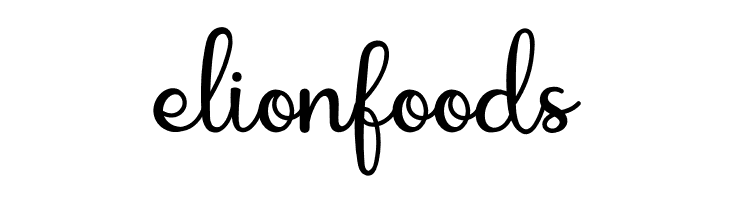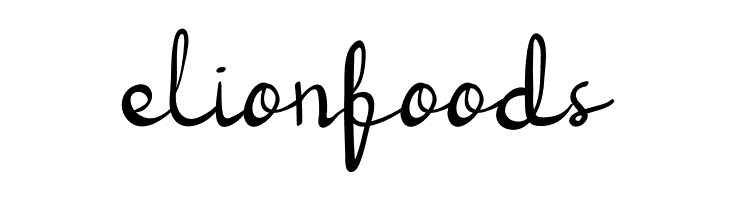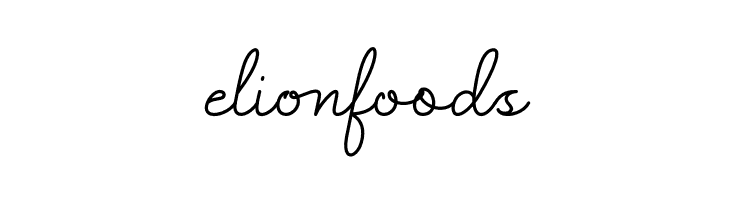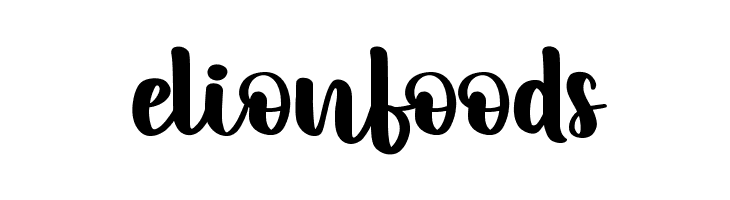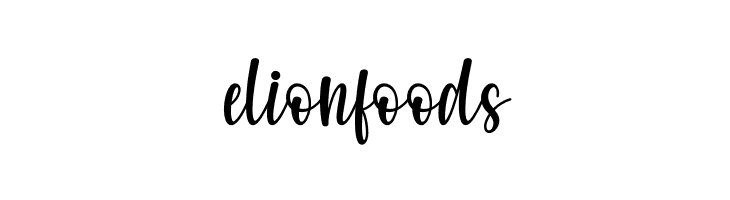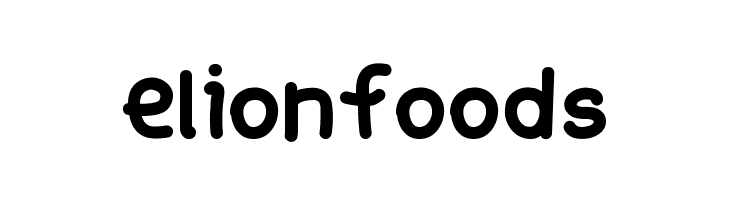
A dynamic, flowing script font with elegant, cursive letterforms and a consistent italic slant.
A dynamic, brush-style font with bold, expressive strokes.
A playful, handwritten script font with rounded, dynamic characters.
An elegant, flowing script font with intricate loops and swashes.
A playful and dynamic script font with fluid, connected letterforms.
A playful and elegant script font with a handwritten touch.
A bold, playful handwritten font with smooth curves and a lively appearance.
A playful and elegant handwritten script font.
A playful, rounded, and handwritten-style font with a friendly and informal appearance.
A refined script font with elegant, flowing cursive strokes.